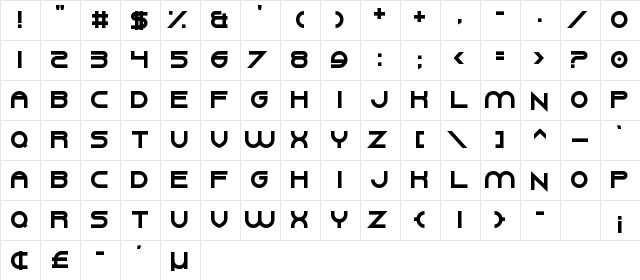
Gang Wolfik Craze Regular
| Foundry | Chequered Ink |
| Designer | Andrew McCluskey |
Design Context for Gang Wolfik Craze Typeface
Gang Wolfik Craze takes a measured approach to typography — its balanced proportions and neutral character make it a reliable workhorse for both digital and print work.